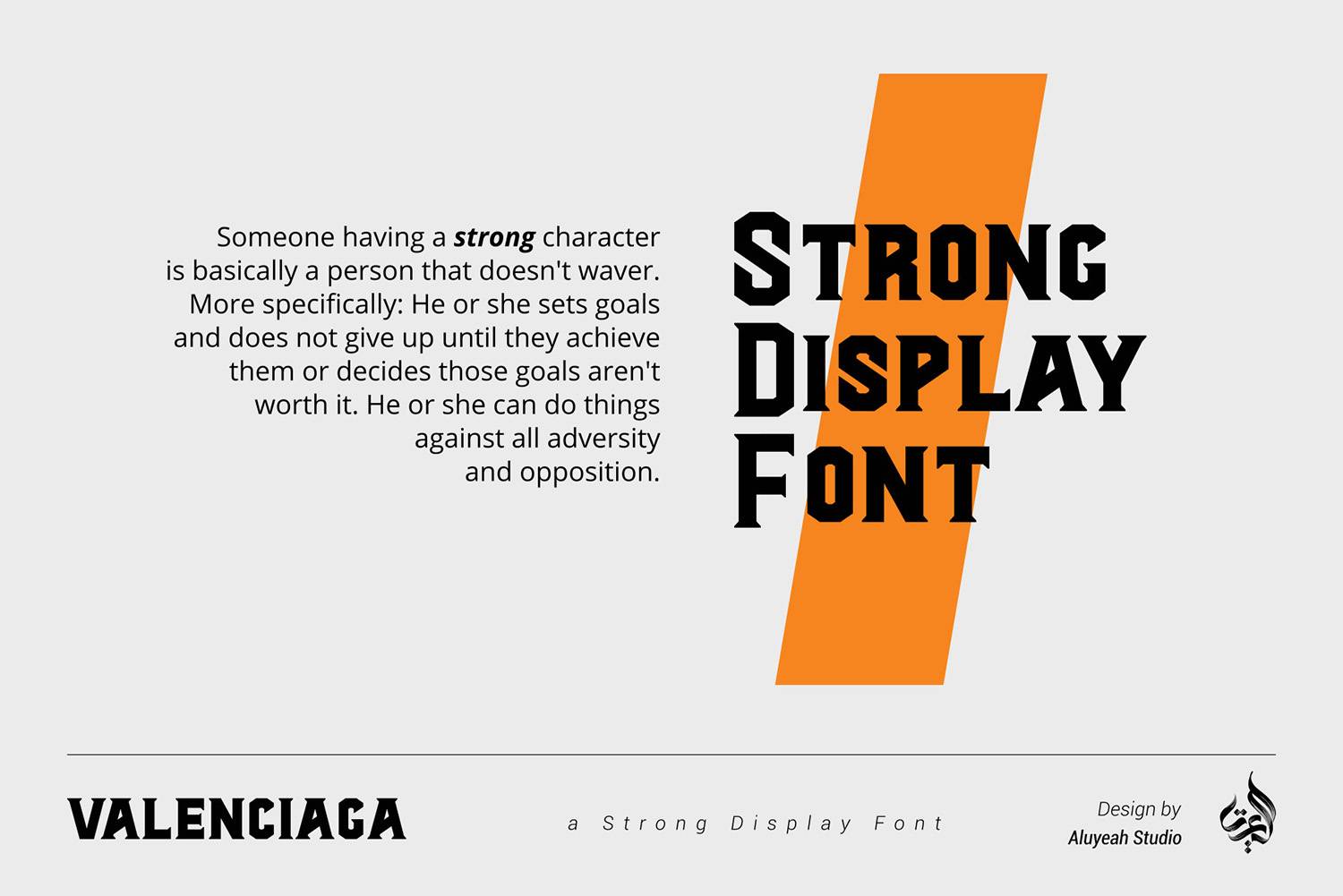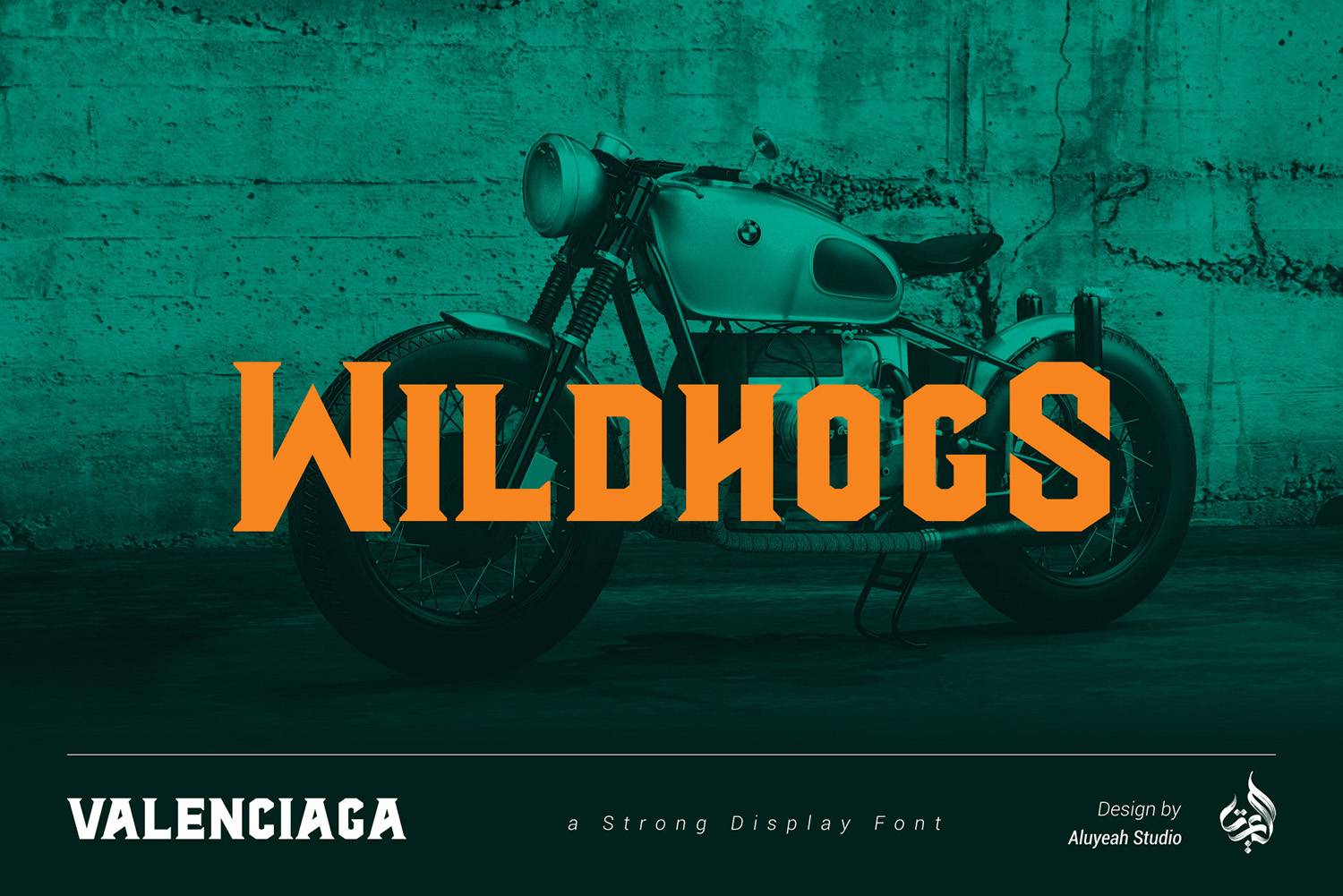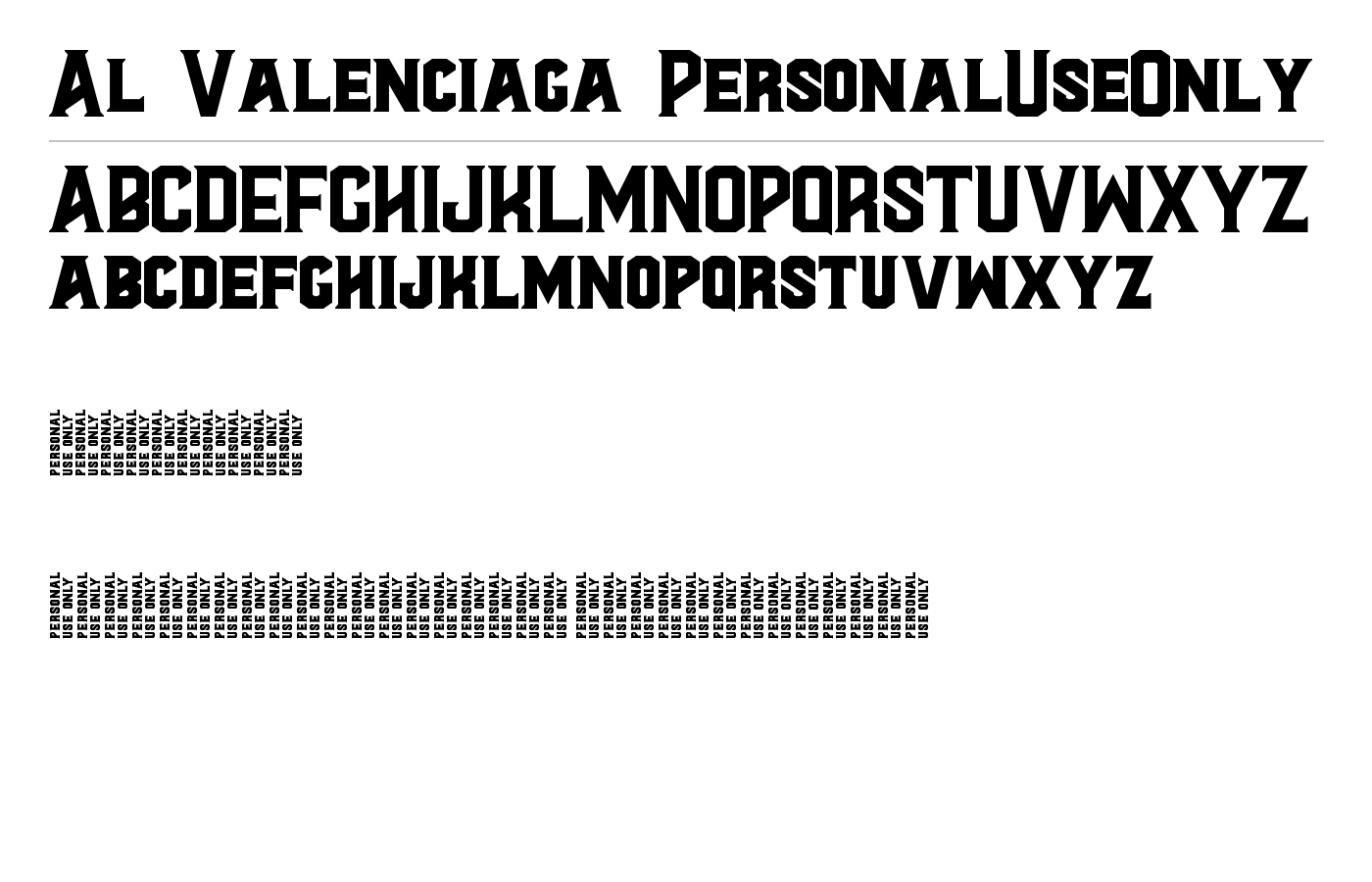
Valenciaga is a bold, condensed serif font with strong geometric influences and sharp, angular serifs that create a striking, authoritative look. Its high contrast between thick and thin strokes combined with unique letter shapes gives it a vintage yet modern feel, making it perfect for impactful headlines, logos, and branding that demand attention. This font works well in editorial design, fashion branding, and posters where a powerful and distinctive presence is needed.
Valenciaga Font
About Valenciaga Font